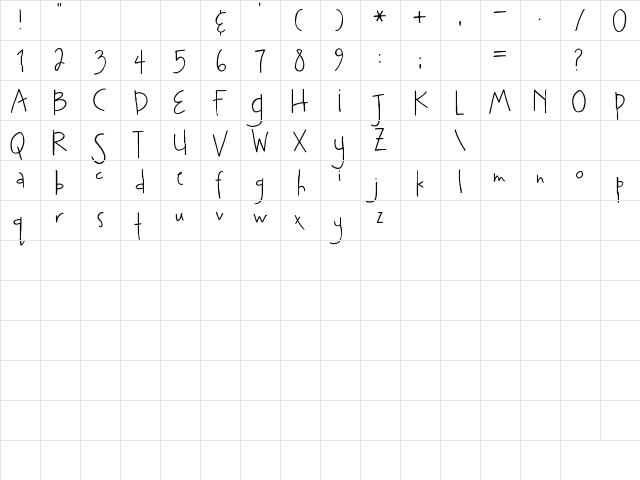
2Peas Ditzy 2Peas Ditzy
| Style | 2Peas Ditzy |
| Foundry | High-Logic |
| Designer | High-Logic - Erwin Denissen 1999 |
Design Context for 2Peas Ditzy Typeface
2Peas Ditzy is a composed and adaptable typeface that performs quietly and consistently across a wide range of design contexts.